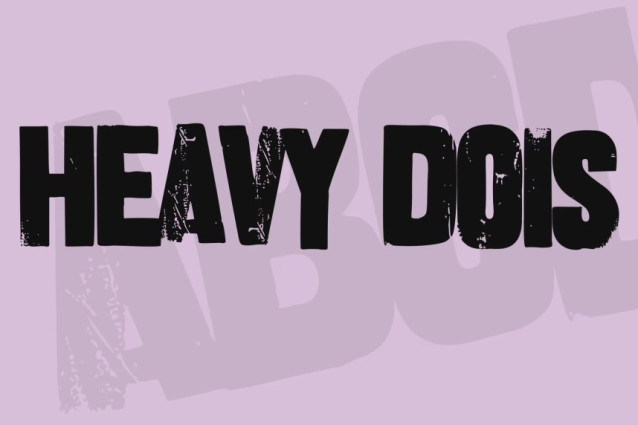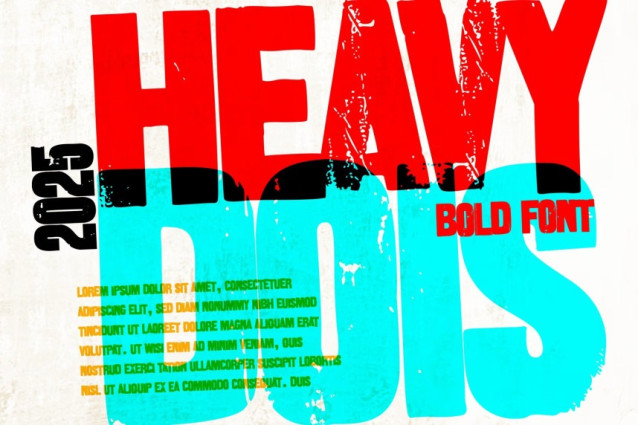
Heavy Dois Font
Heavy Dois Font is a powerful bold typeface, launched in 2025 with a bold and bold style. Its strong design creates a direct foreground emphasis, ideal for headlines, posters or any creative project that needs to attract attention at first sight.